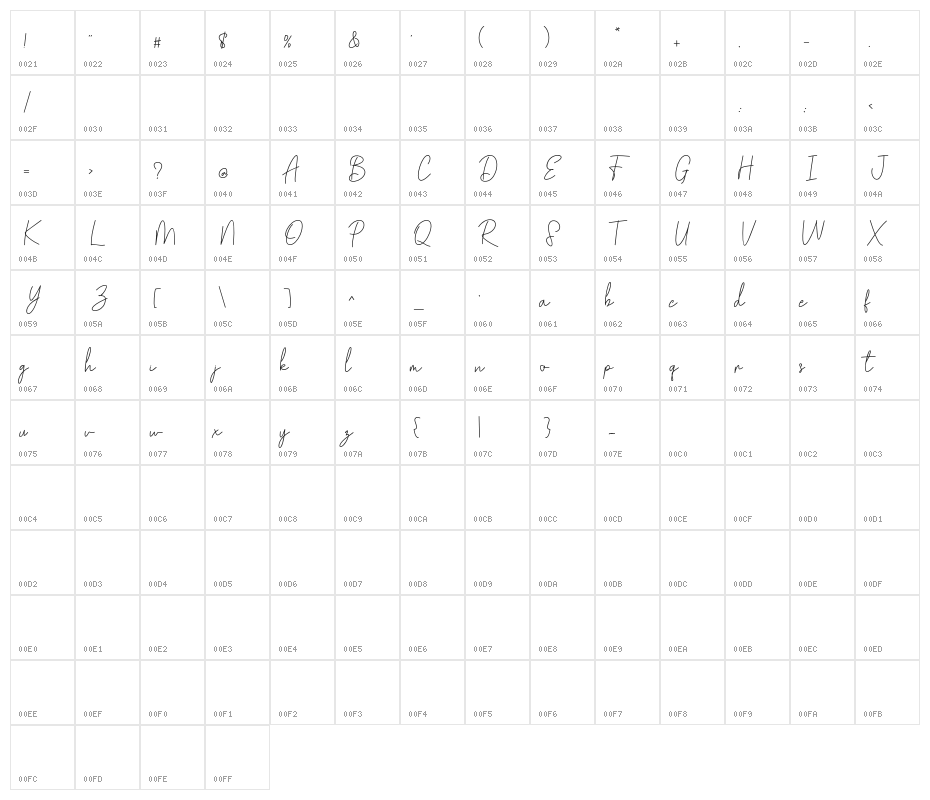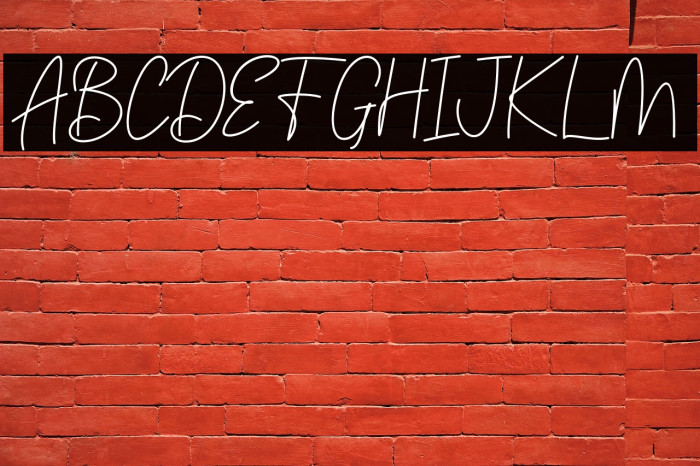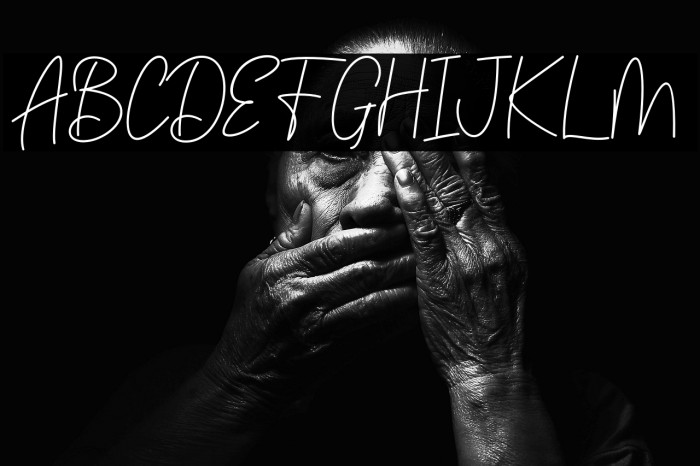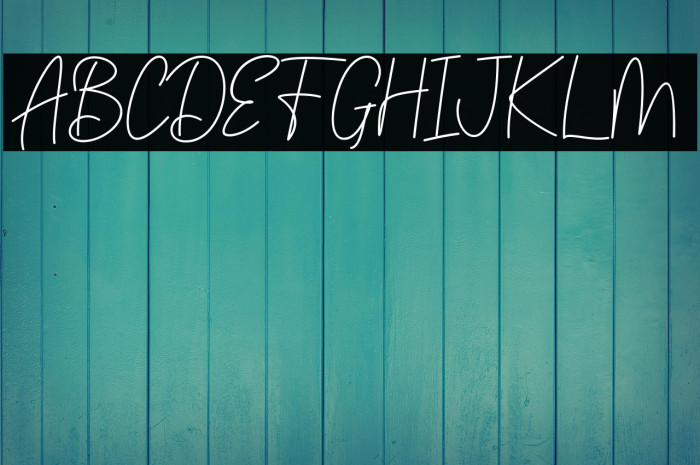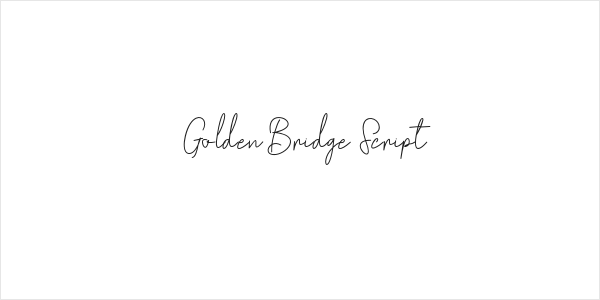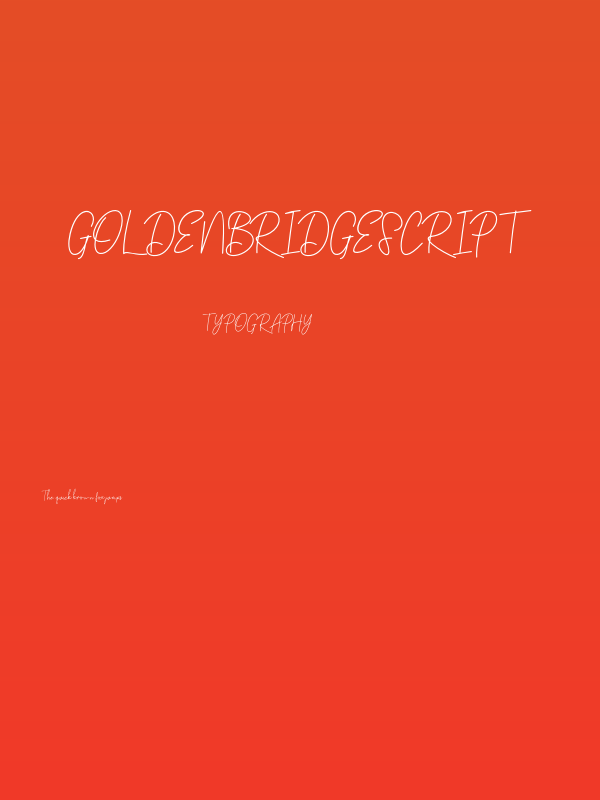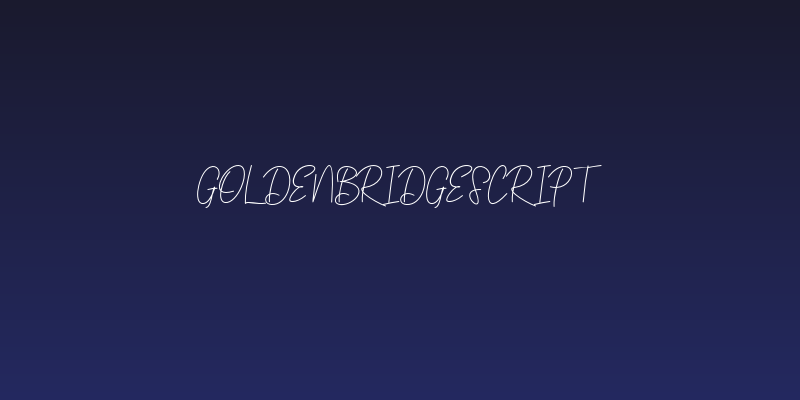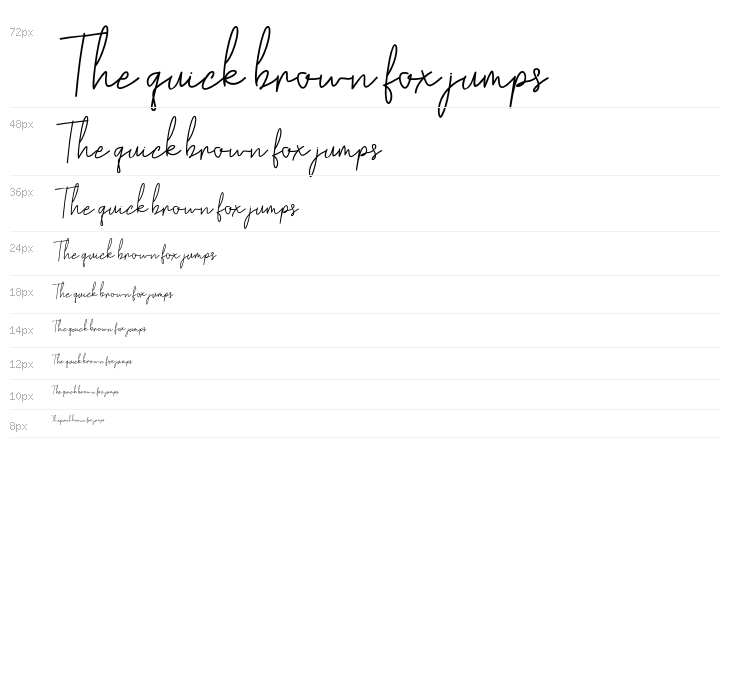
GoldenBridgeScript Font
GoldenBridgeScript Description
This elegant script font features a flowing, cursive style with a modern touch. The uppercase letters are tall and slender, with graceful loops and curves that give a sense of fluidity and motion. The lowercase letters maintain a consistent style, with delicate connections between characters that enhance the script's cohesive appearance. The numerals and special characters are designed to complement the overall aesthetic, offering a harmonious blend of style and functionality. This font exudes a sense of sophistication and charm, making it ideal for projects that require a personal and artistic touch.